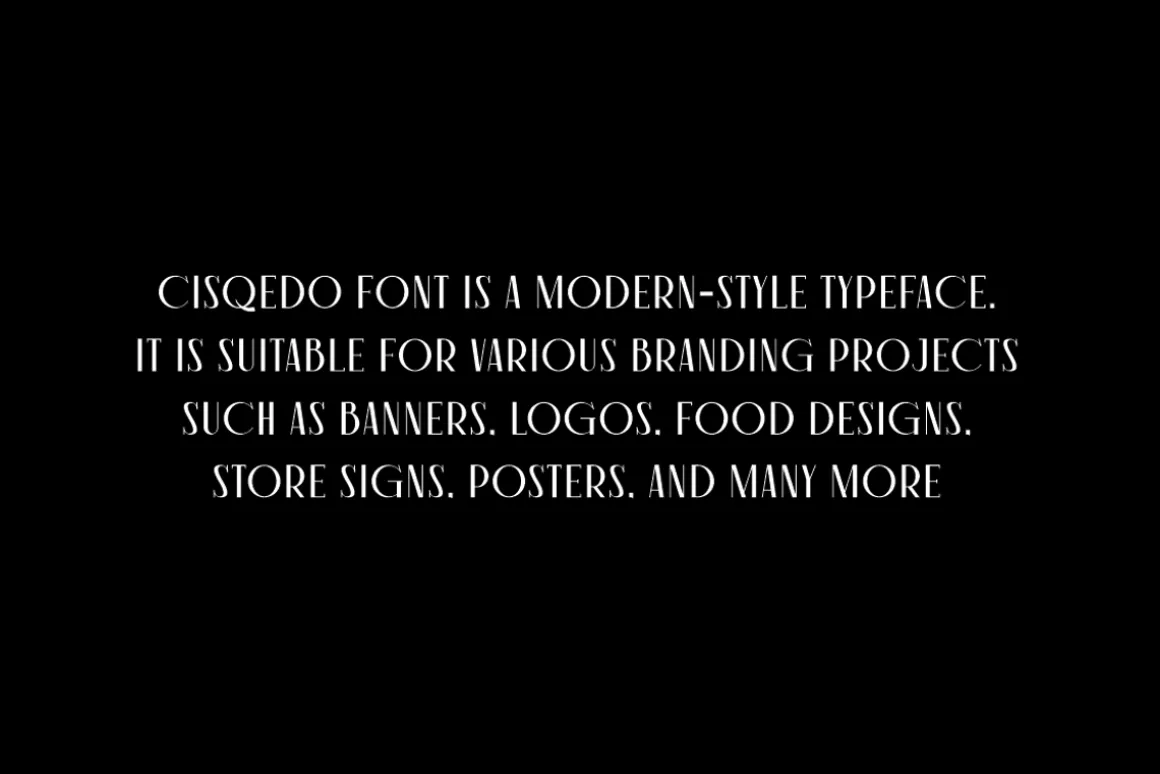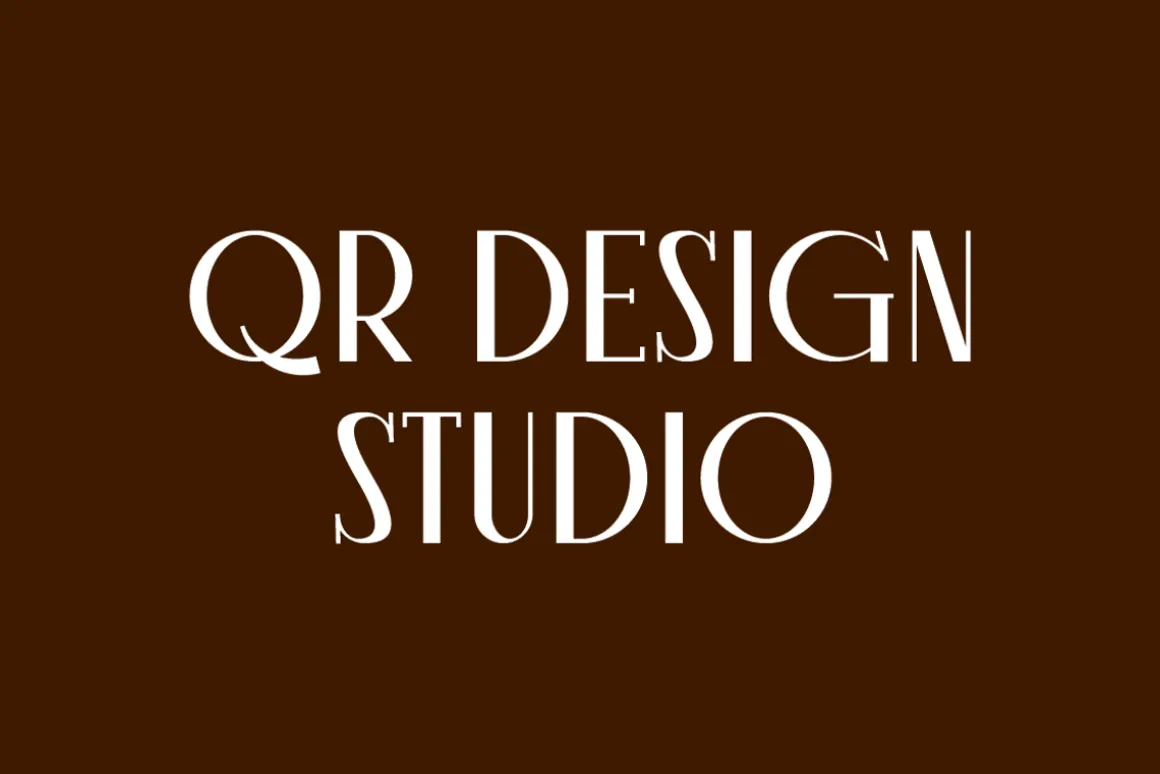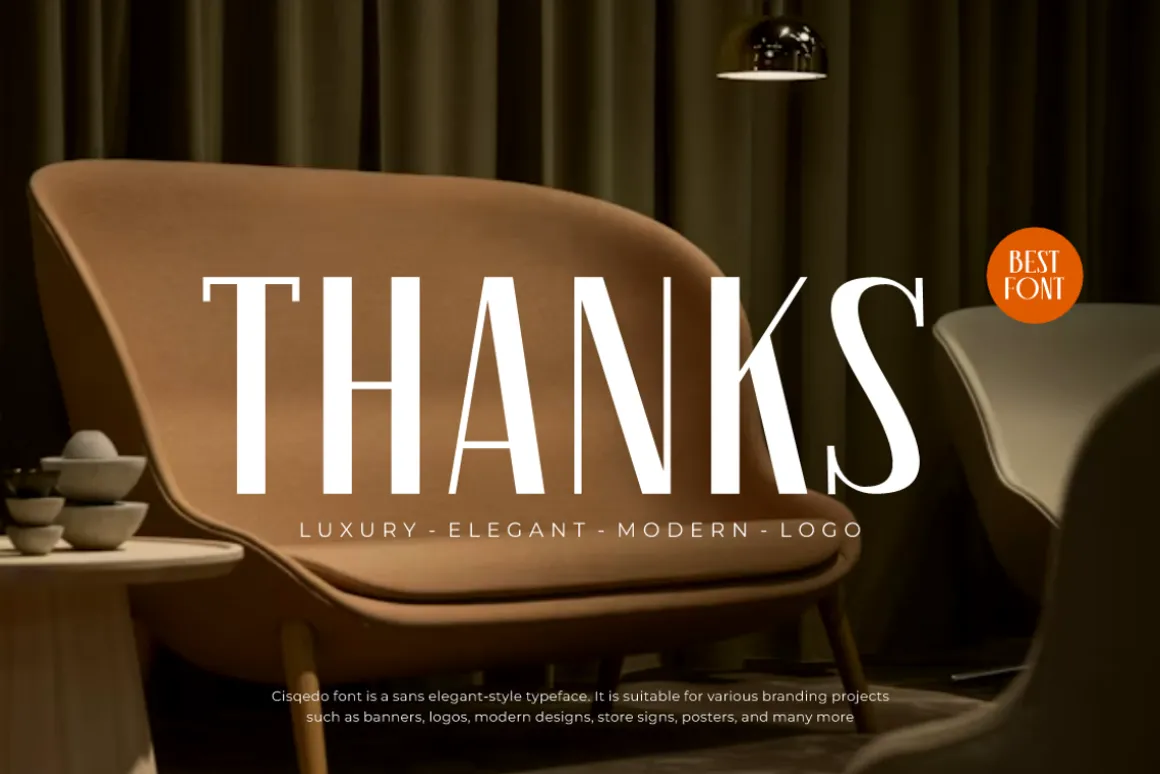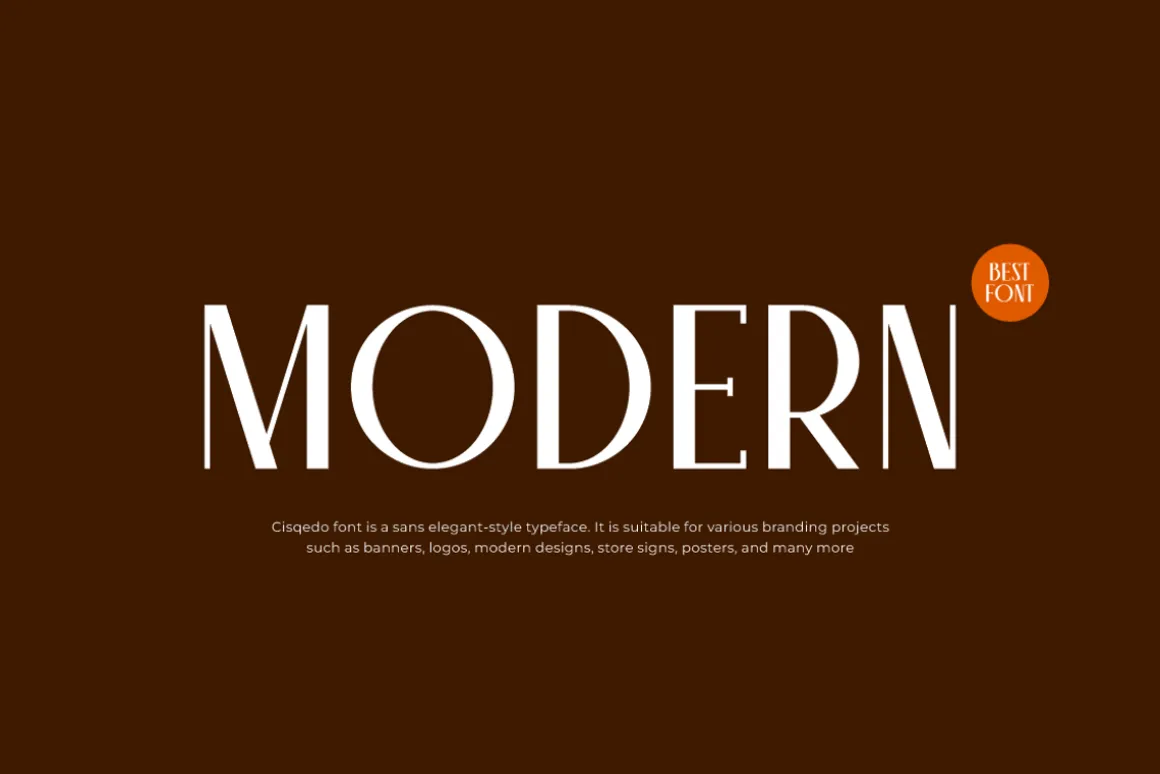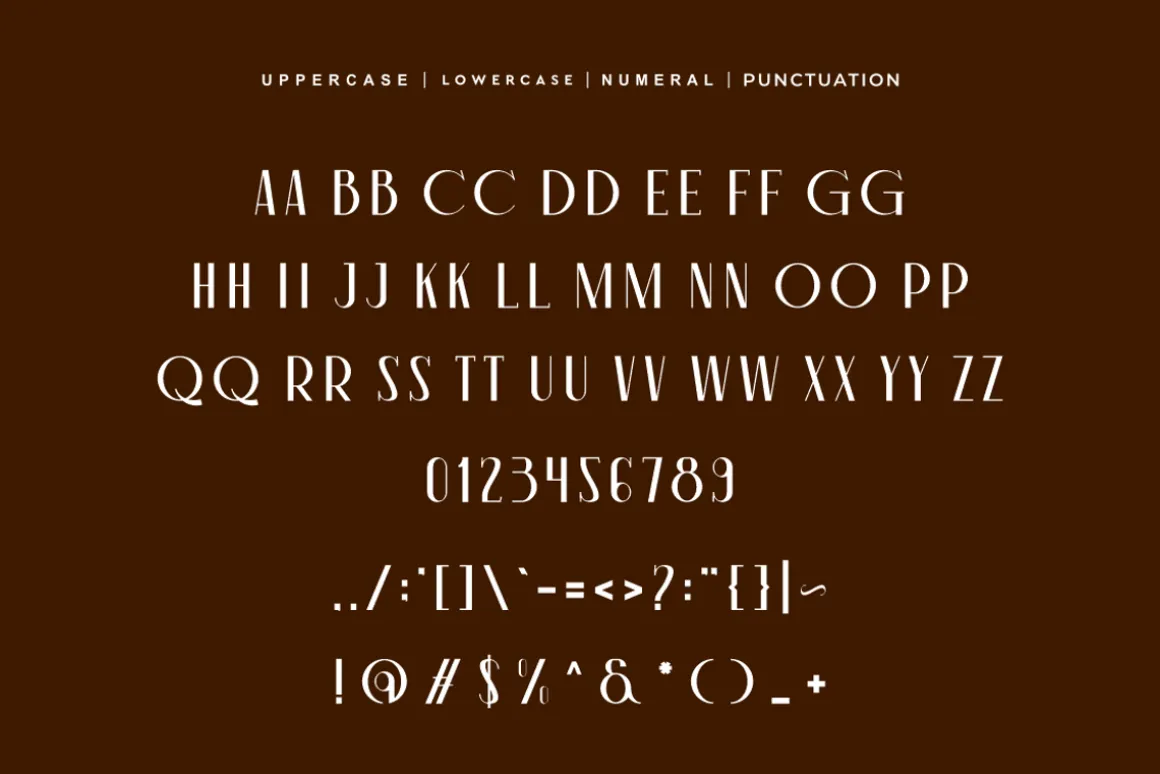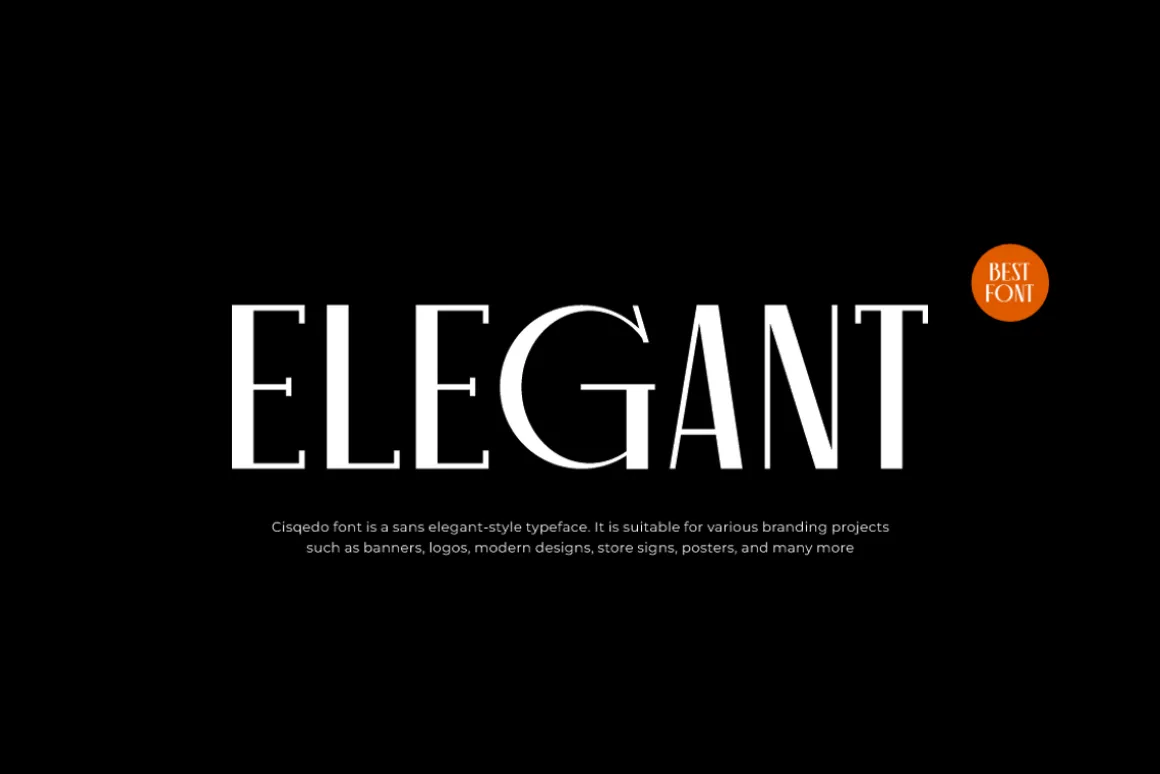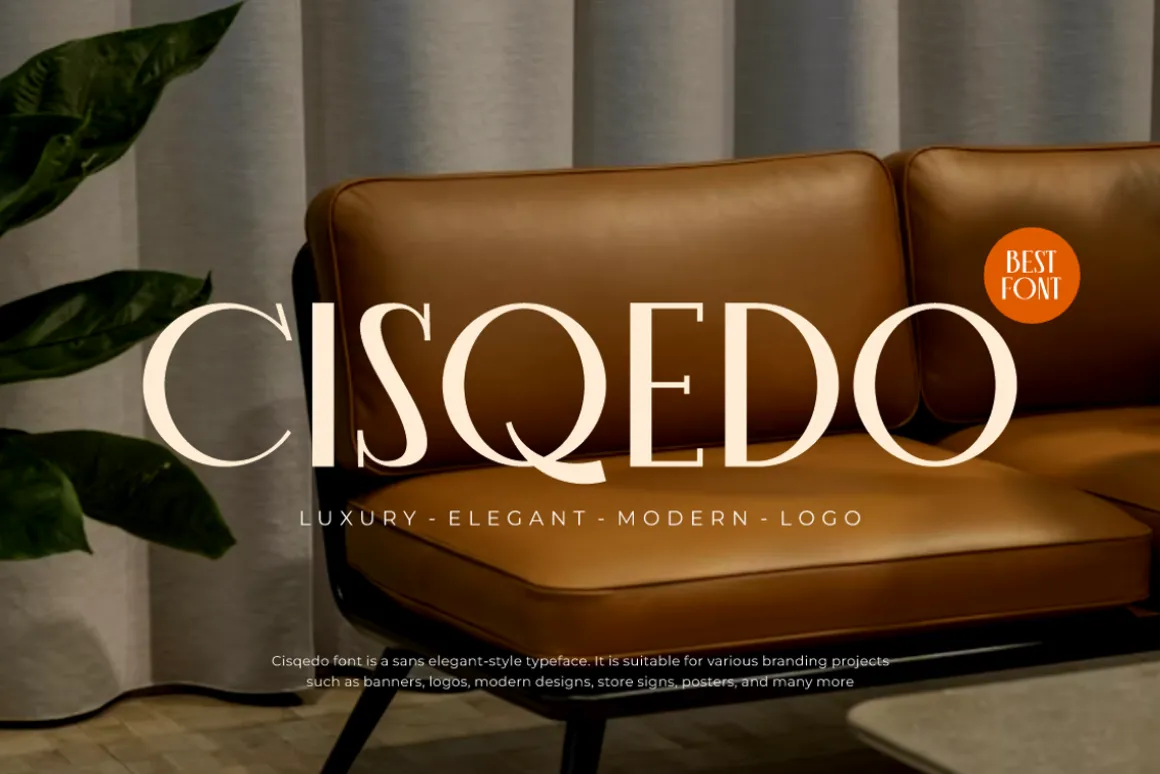
Cisqedo Font is a luxury and authentic display typeface.It’s perfect for various branding projects such as logos, sports designs,and more. This font stands out beautifully in a wide range of contexts.